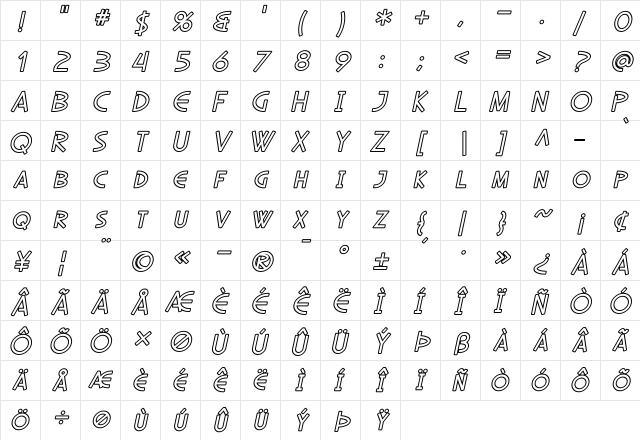
SF Diego Sans Outline Oblique
Design Context for SF Diego Sans Outline Typeface
SF Diego Sans Outline is built around its visual character rather than neutral utility — its distinctive forms are designed to make an impression at display sizes. The dynamic lean of this cut emphasises speed and emphasis in any layout.
Font Pairing: Pair with a clean neutral sans-serif for body copy to let SF Diego Sans Outline's character lead without overwhelming the composition.
Pro Tip: Treat SF Diego Sans Outline as the centrepiece of your typographic hierarchy. One strong heading set in a decorative face can carry an entire layout.